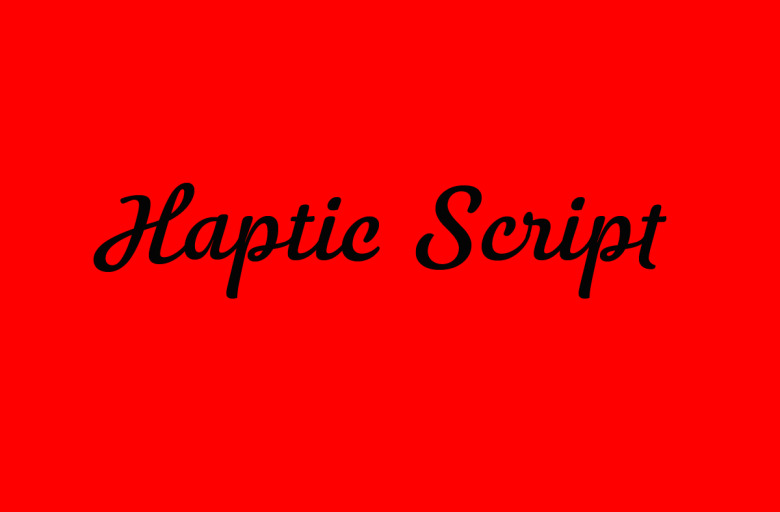
Haptic Script Font
The Haptic Script family is a connected brush script with a warm, personal and soft character. The typeface family has five styles from Light through Black. It was designed as a companion and extension to the Haptic sans-serif family.
Haptic Script has up to 14 variations for each glyph. The almost 2,000 characters per font including 40+ ligatures enable designers to give each word an individual look. Many swash characters for initials and word endings make words looks as if they were hand lettered.